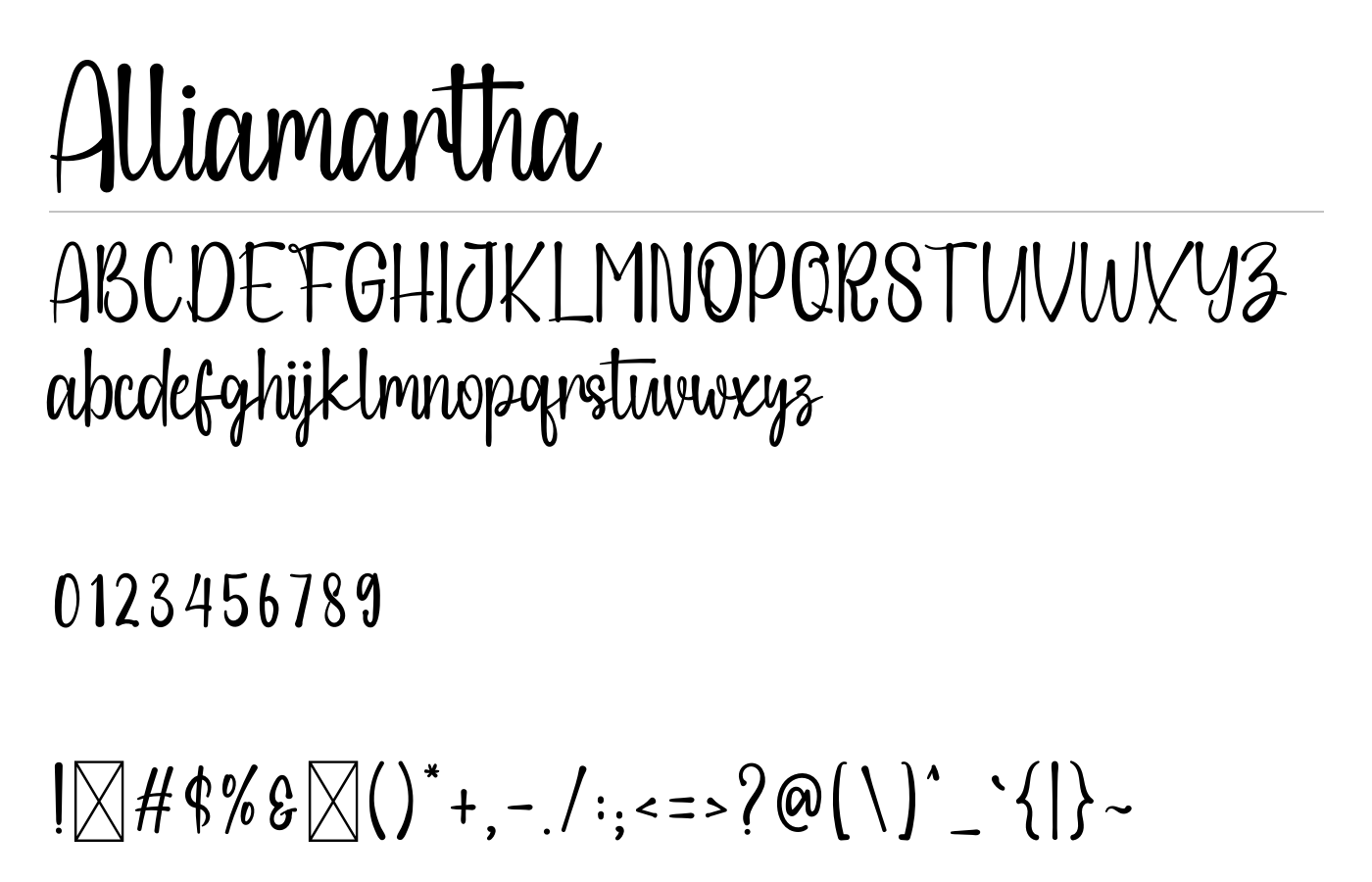
Alliamartha is a playful and modern handwritten font with tall, narrow letterforms and a casual, friendly feel. Its light weight and slightly irregular strokes create an approachable, personal touch that works perfectly for creative projects, invitations, or informal branding. This font adds charm and expressiveness while maintaining readability, making it ideal for headlines, logos, and social media graphics where a warm, handwritten style is desired.
Alliamartha Font
About Alliamartha Font